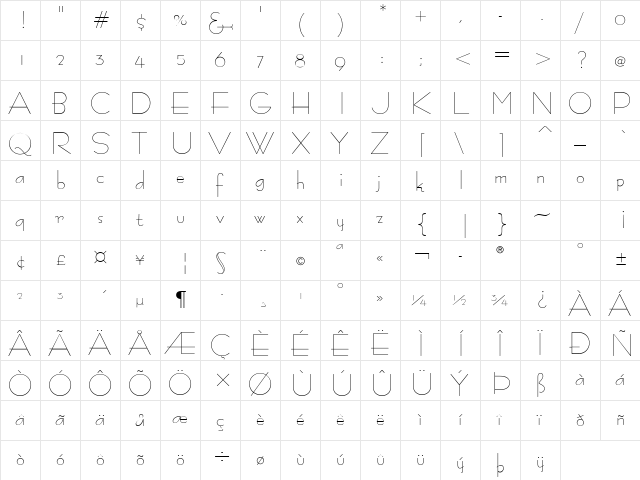
Bernardo Moda Regular
Design Context for Bernardo Moda Typeface
Bernardo Moda offers clean, dependable letterforms without strong stylistic allegiance, making it a practical choice for designers who need flexibility.